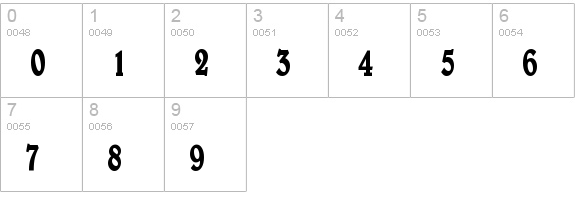
Blew Condensed Bold is a strong, high-contrast, condensed-width variant in the Blew typeface family \xE2\x80\x94 well suited to headlines, attention-grabbing titles, and strong calls-to-action.
Blew Condensed Bold font is a modern and stylish typeface that exudes confidence and sophistication. With its sleek lines and bold presence, this font is perfect for making a statement in any design project. The condensed style of the font allows for efficient use of space while maintaining readability and impact. One of the best features of Blew Condensed Bold font is that it is completely free to download. You can easily access this versatile typeface at FontsMarket.com, where you can enhance your projects with its bold and striking appearance. Whether you are designing a poster, logo, or website, Blew Condensed Bold font is sure to make a lasting impression. Download it now and elevate your designs with this eye-catching and impactful typeface.